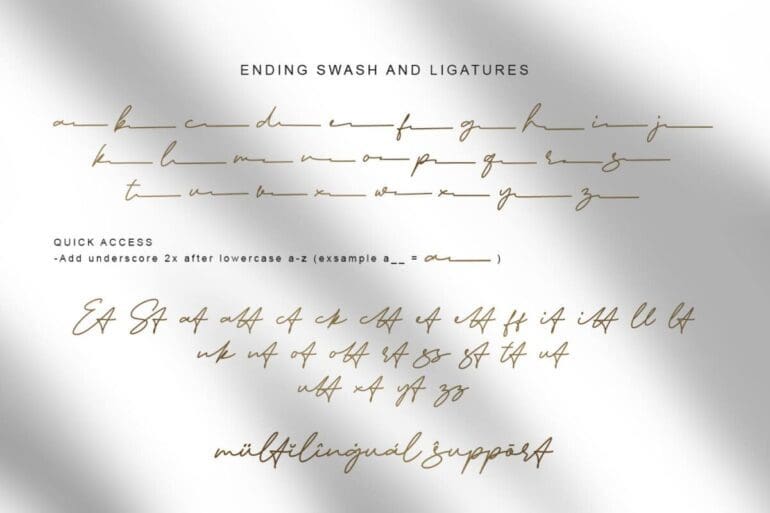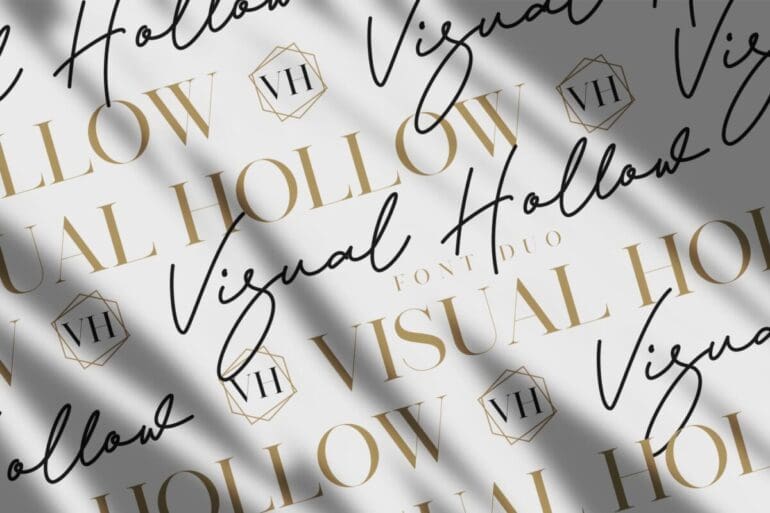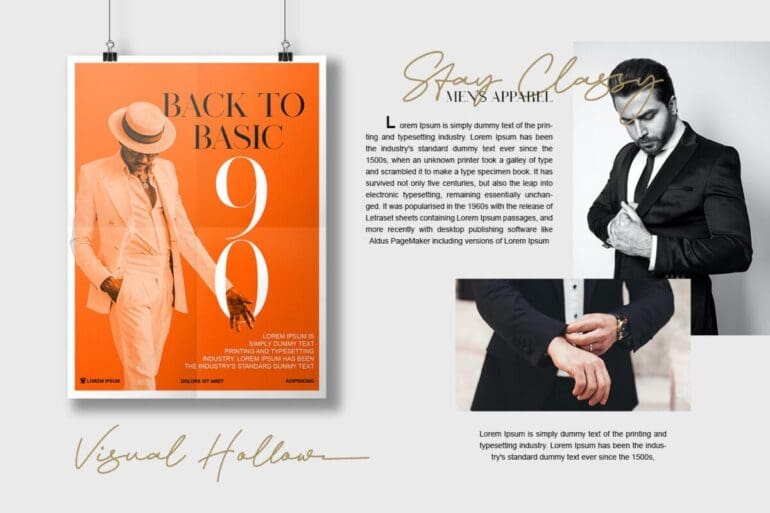
Visual Hollow Font
Visual Hollow Font Duo, perfect for product packaging, branding project, magazine, social media, and much more. Explore the best your side.